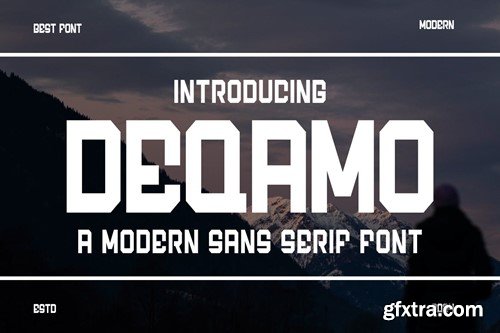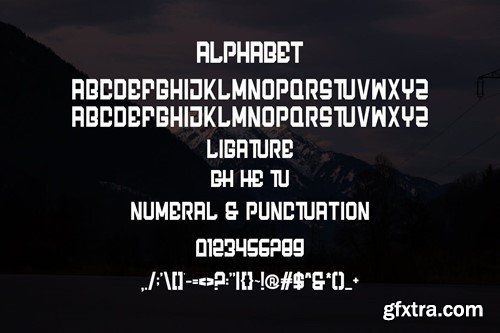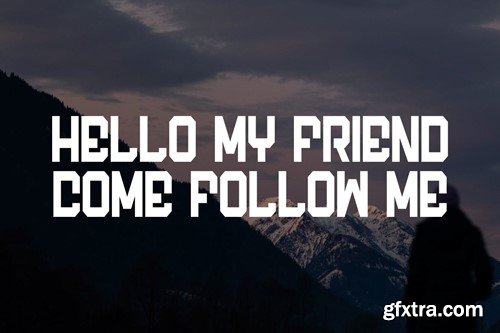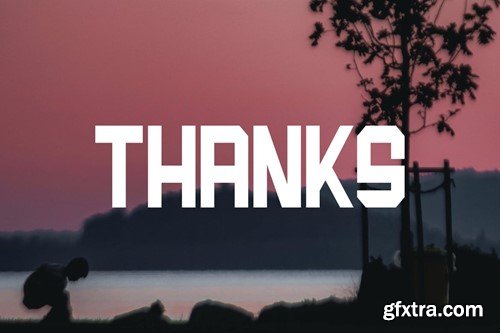
Deqamo Font
Introducing Deqamo Modern Sans Serif Font. Deqamo is a modern and simple font, best used as a display for headings, logos, branding, magazines, product packaging and invitations. Deqamo come with clean lines and smooth curves give any project an extra touch of class. What you get: Thank you.